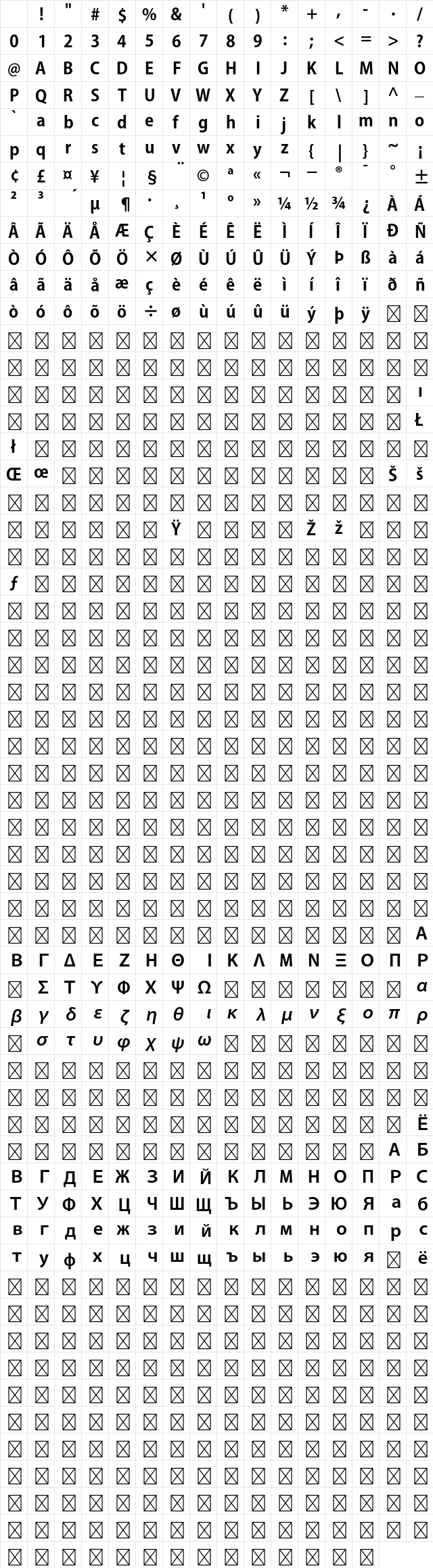
Kozuka Gothic Std B
Style: B
Designer: Masahiko Kozuka
Complete Kozuka Gothic Std B glyph index. Displaying only characters natively supported by Kozuka Gothic Std B font.
Design Context for Kozuka Gothic Std
Kozuka Gothic Std takes a clean, functional approach - its unadorned letterforms prioritise legibility and work reliably across screen and print environments.
Font Pairing: Works well alongside a characterful serif or display font that can carry the expressive load while Kozuka Gothic Std handles the functional copy.
Pro Tip: Use Kozuka Gothic Std for UI labels, navigation, and short-form body copy where clean legibility is the priority.